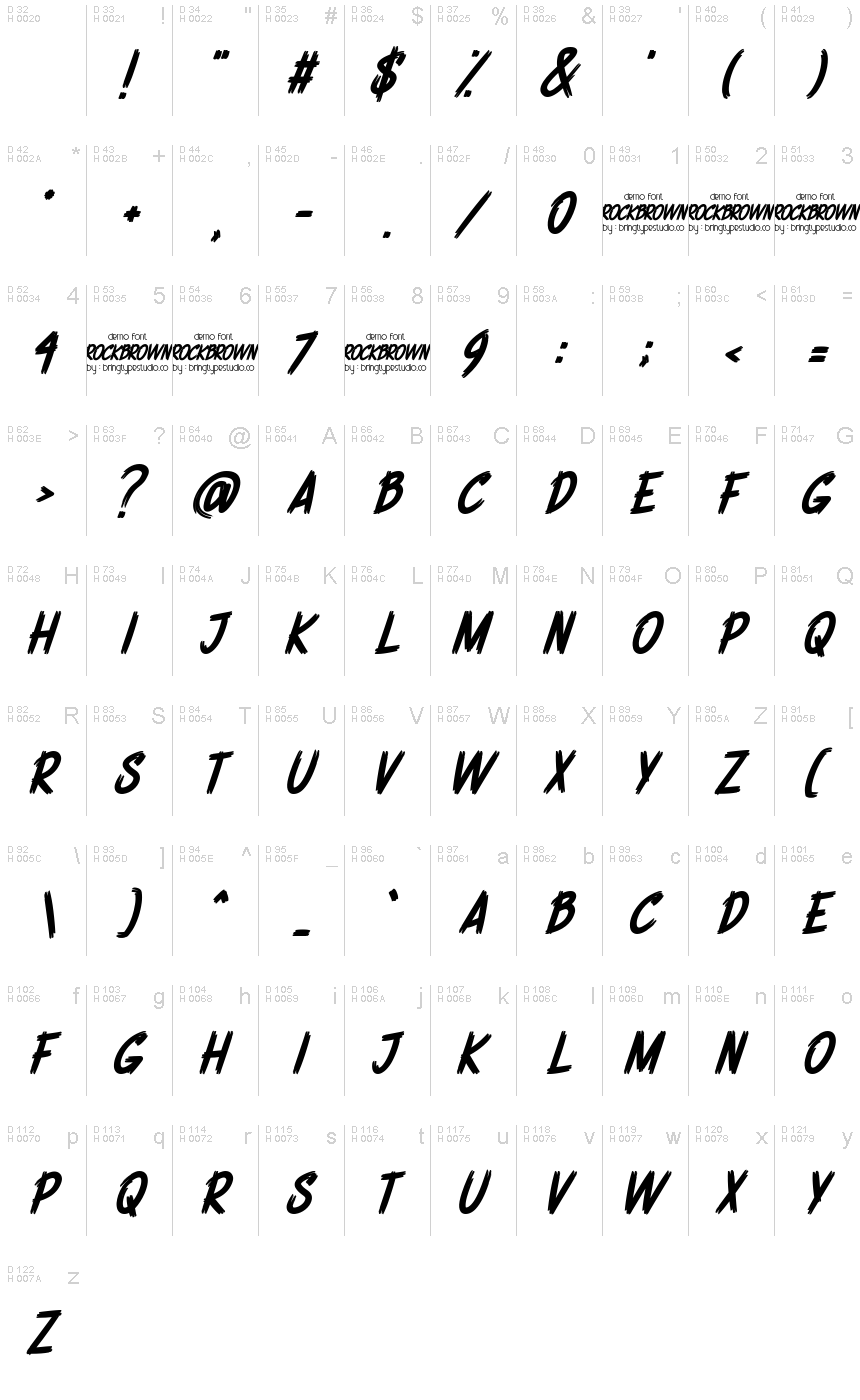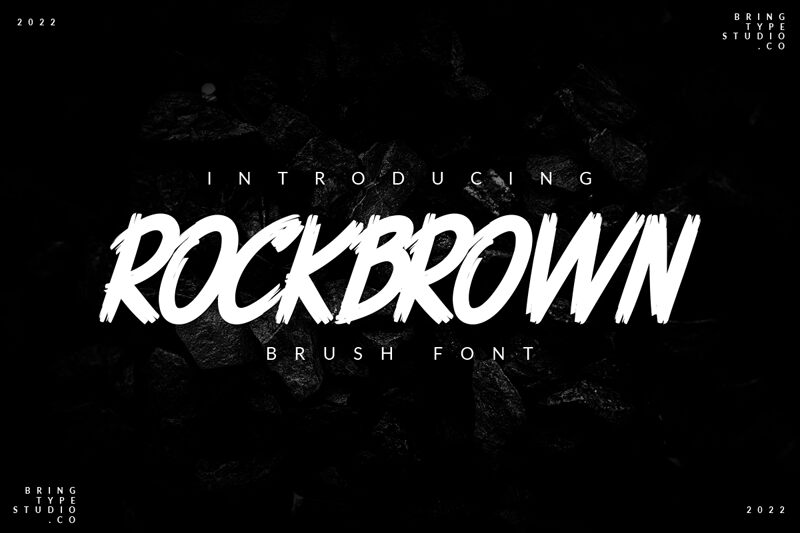
ROCKBROWN
ROCKBROWN, by bringtypestudio.co, is a font that embodies the raw energy and boldness of a brush stroke. Its condensed form adds a touch of rugged elegance, making each character leap off the page with dynamism. The unmistakable brush style infuses designs with a handcrafted aesthetic that's both modern and timeless.
This font's artistic flair makes it ideal for projects that require an organic yet impactful touch. It suits branding materials, poster designs, album covers, and apparel that aim to stand out with an edgy yet sophisticated vibe. ROCKBROWN's distinctive texture brings character to any creative work looking for that bespoke feel.